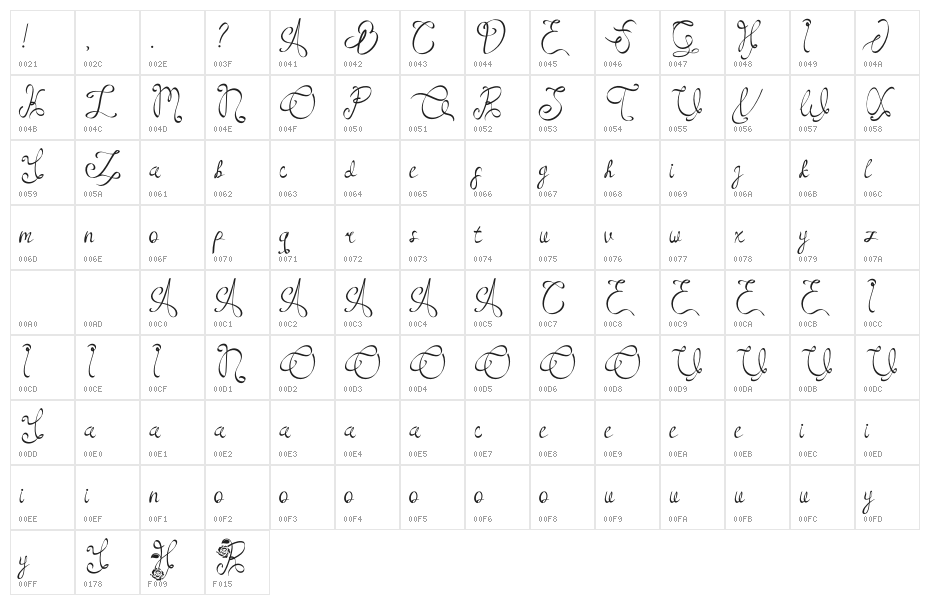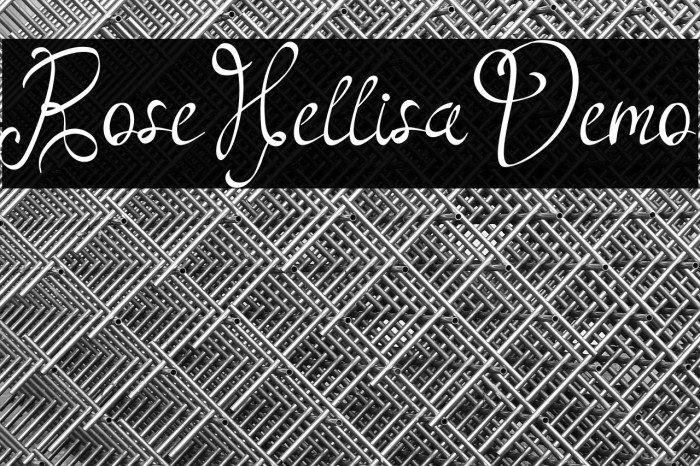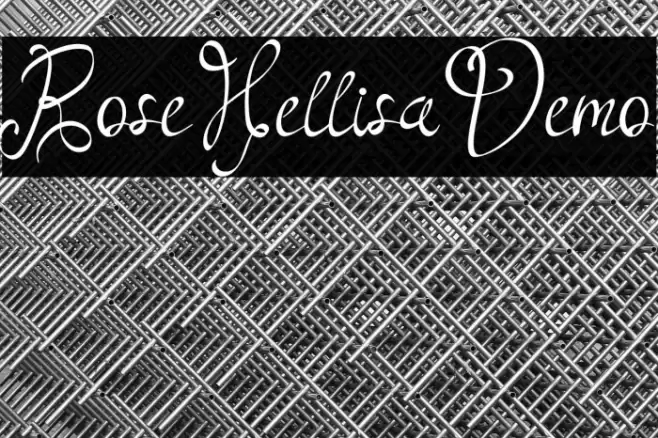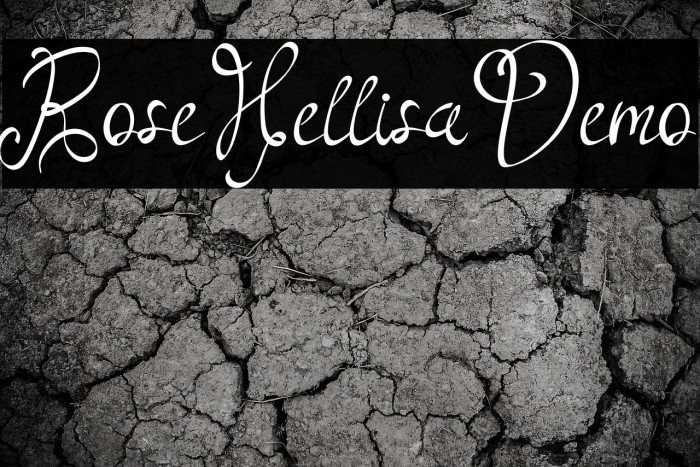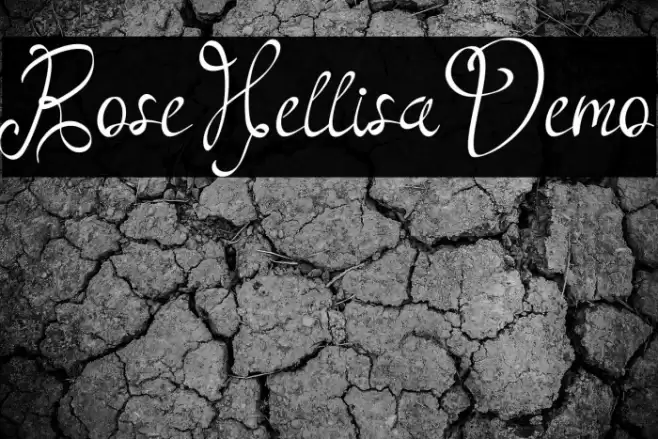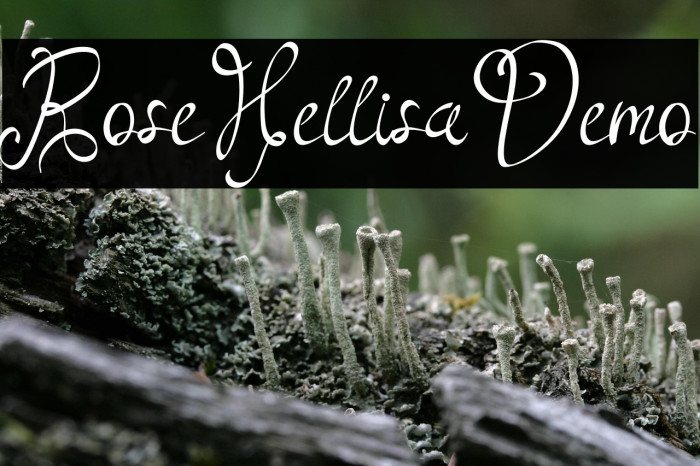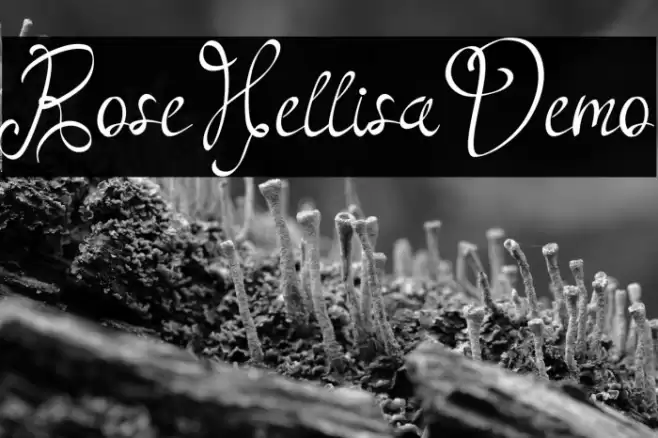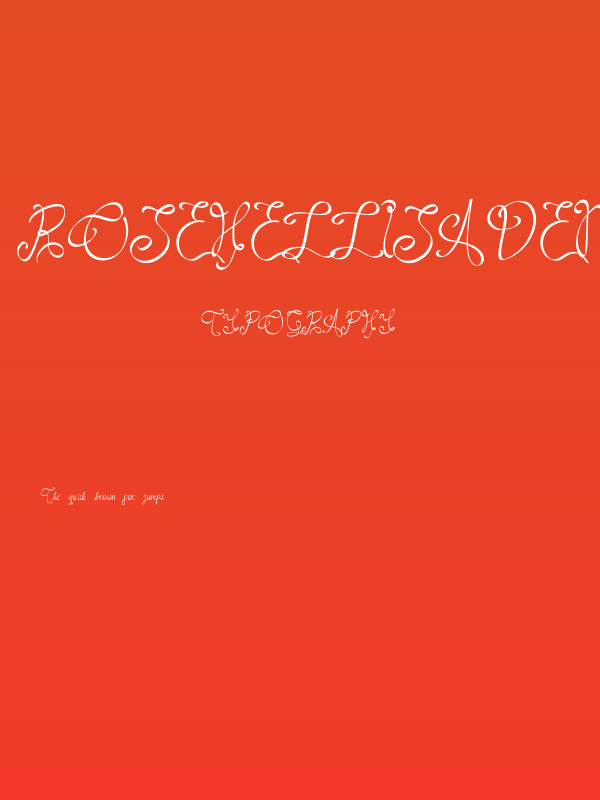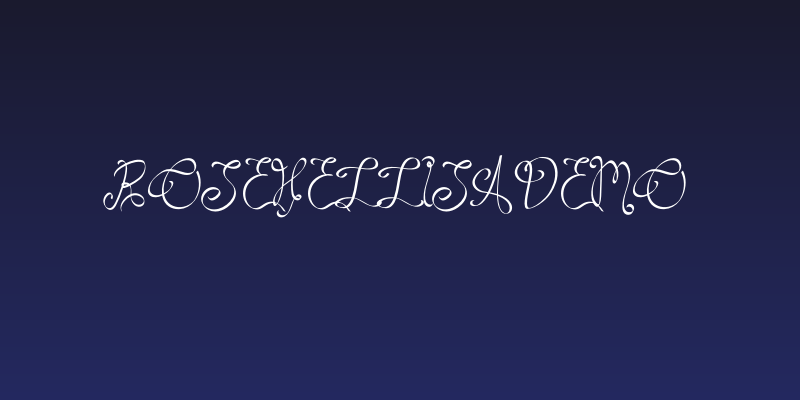
RoseHellisaDemo Font
RoseHellisaDemo Description
This font exudes a whimsical and elegant charm, characterized by its flowing, cursive style. The uppercase letters are adorned with intricate loops and swirls, giving them a decorative flair. The lowercase letters maintain a consistent fluidity, with smooth curves and a slightly playful touch. The overall design is reminiscent of hand-drawn calligraphy, making it ideal for projects that require a personal and artistic touch. The absence of numbers and most special characters suggests a focus on aesthetic appeal rather than functionality.